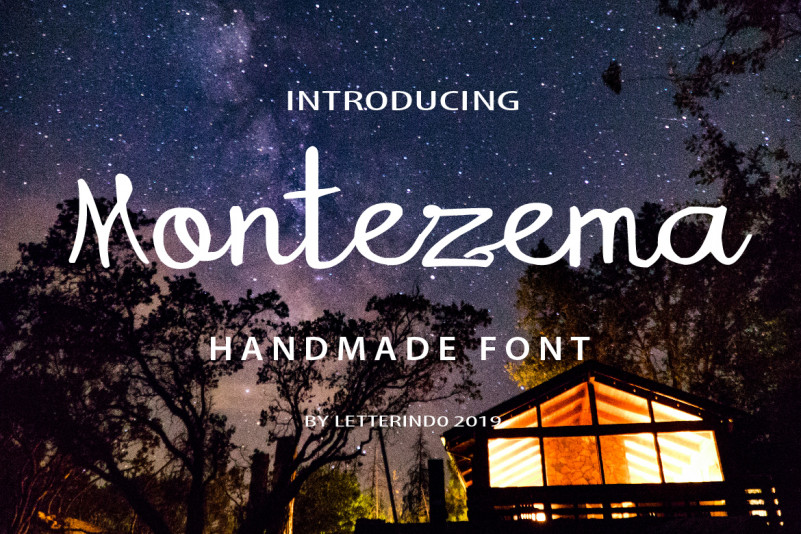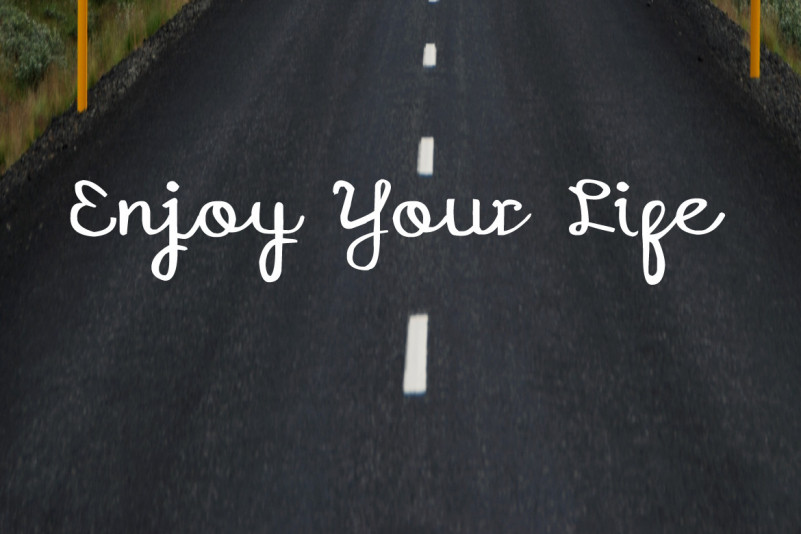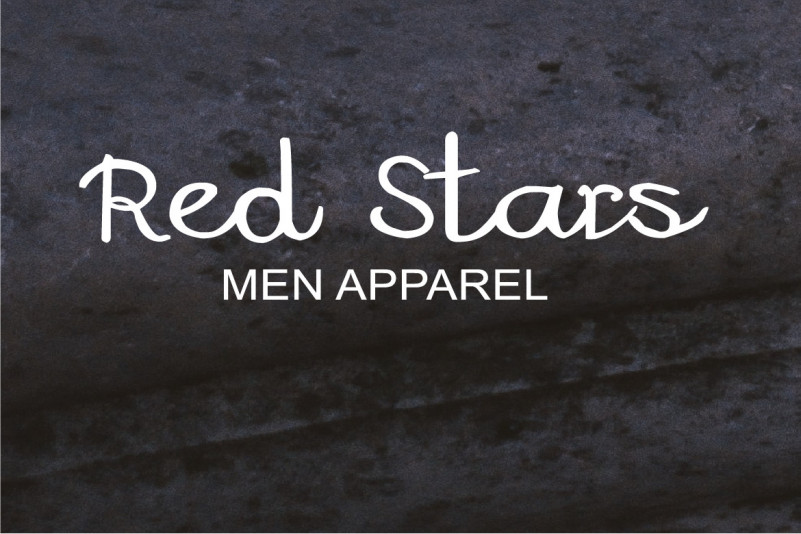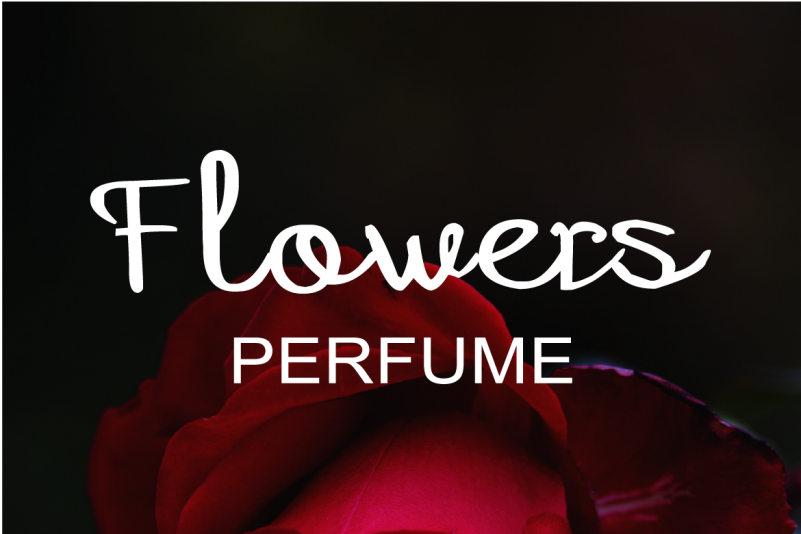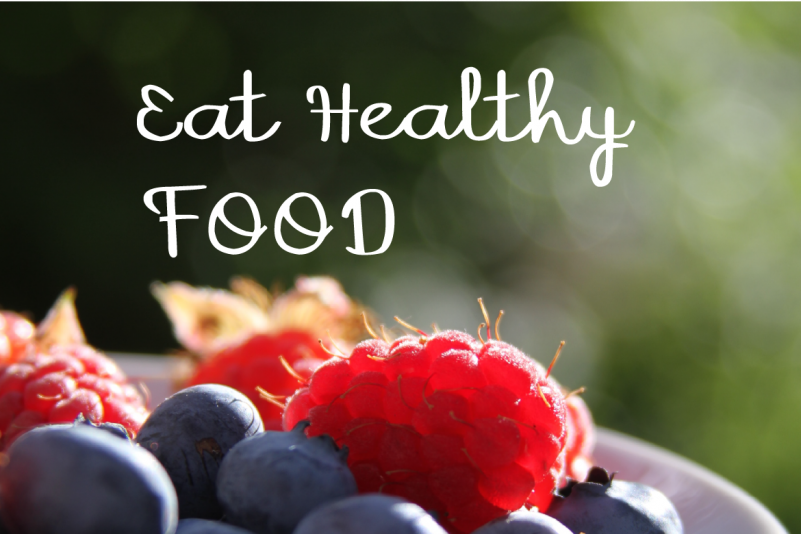
We just now launch our newest product called Montezema Handmade Font. This font is very suitable for logo, clothing, magazine, poster, quotes, and others.
With natural touch this font is the best choice for you.